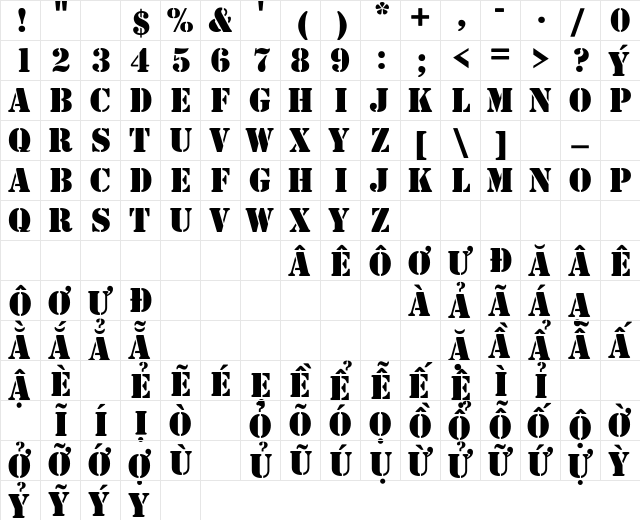
.VnStamp Normal Font Preview
.VnStamp Normal
.VnStamp Normal Font Details
Design Context for .VnStamp Typeface
.VnStamp has the rough pragmatism of spray-painted stencil signage, adding a raw, street-level authenticity to designs.
A strong choice for packaging that needs edge, warehouse aesthetics, and rough-and-ready visual identities.
Pro Tip: Use .VnStamp at large sizes on packaging, posters, or apparel where the stencil cutaways read clearly. Avoid small sizes where those gaps become visual noise.